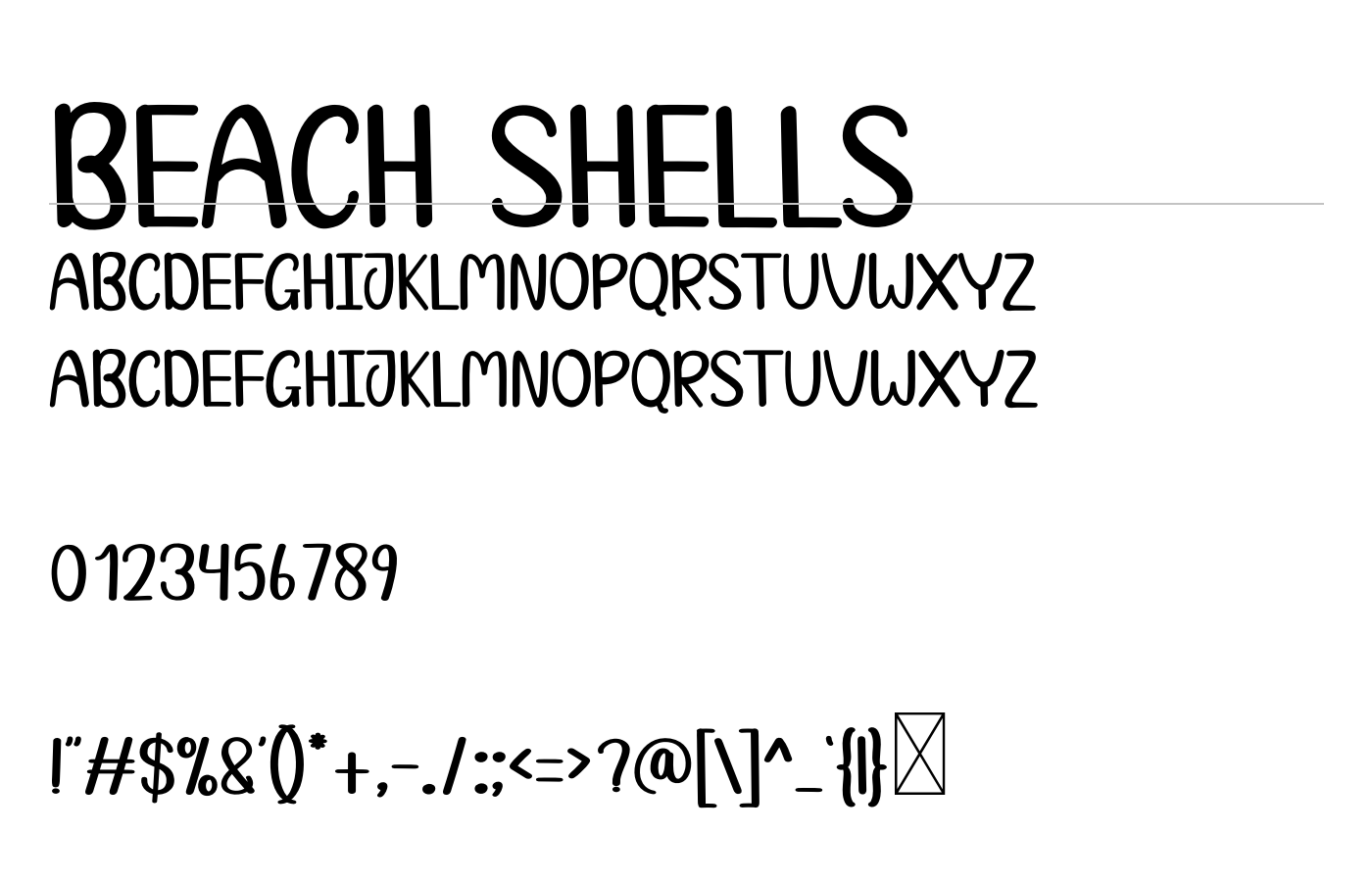
Beach Shells Font is a playful and casual sans serif typeface with a hand-drawn feel, featuring tall, slender letterforms and a light weight that gives it a breezy, relaxed vibe. Its unique irregular shapes and slightly quirky strokes make it perfect for fun, informal designs such as beach-themed branding, children’s projects, and creative headlines where a friendly and approachable mood is desired. This font works well in informal contexts where personality and a touch of whimsy are key.
Beach Shells Font
About Beach Shells Font